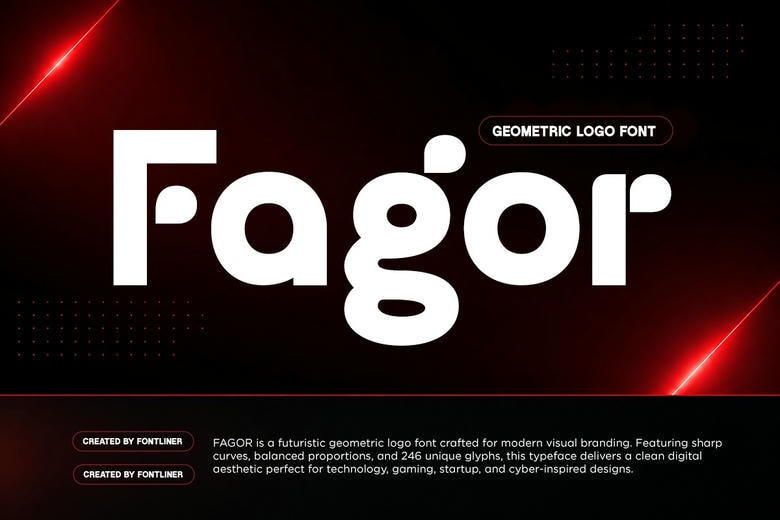
Fagor Font
Fagor is a futuristic geometric logo font that adds a clean, modern look to today’s branding projects. It features balanced proportions, smooth curves, and bold geometric shapes.
This typeface helps create a strong visual identity that looks sleek, professional, and tech-focused. Its modern style is great for designers who want to make memorable, forward-thinking visuals.
Fagor takes inspiration from cyberpunk, digital interfaces, and modern startup branding. It works well for logo design, tech branding, gaming, esports, UI/UX, ads, posters, social media, packaging, and futuristic editorial layouts.
Its clean geometric style is easy to read and keeps a unique, stylish look that fits today’s creative industries.
Fagor Logo Font